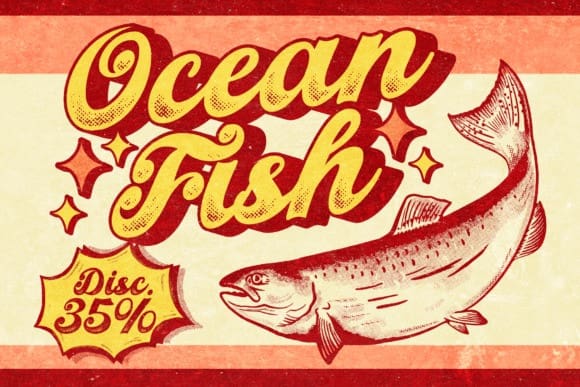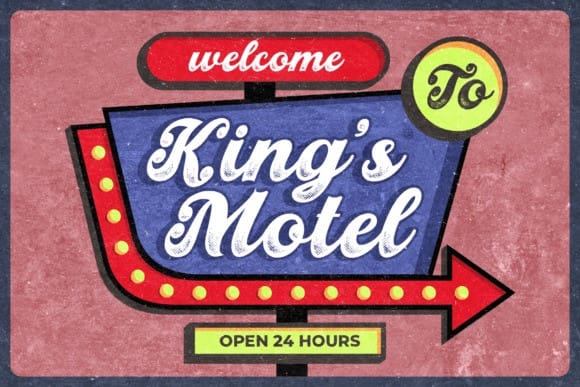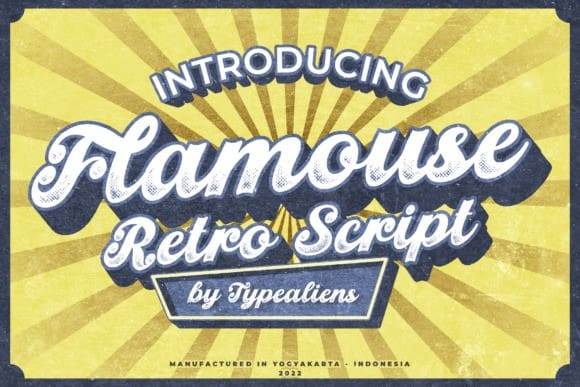
Flamouse Retro Font
Flamouse Retro Font, is a beautiful, retro-style script font, characterized by a fat font and has a halftone texture at the bottom. This font is of course very suitable for supporting retro designs on food or beverage brands, classic American-style restaurants, and promos at supermarkets, and can also be used as a sign for hotels.
A font that is quite unique and different from other scripts, as display text on a t-shirt design will also be very good, with the Baseball style I think it will be more suitable.